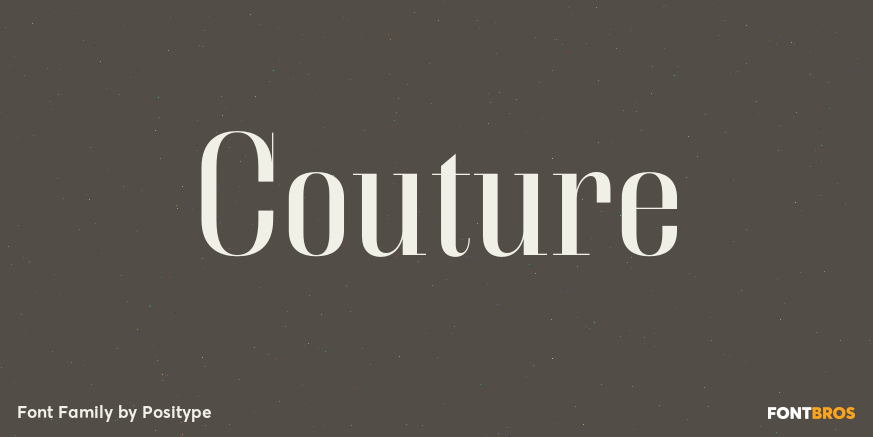
About Couture
Couture has taken years to come to fruition. We cannot say it is a dutiful revival of Imre Reiner\’s Corvinus?a typeface that has always had a soft spot in many of our hearts for its quirkiness and eccentricities. It\’s not. What it is is a reassessment…